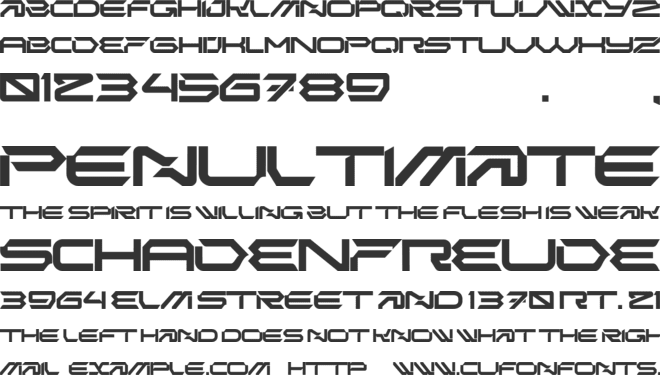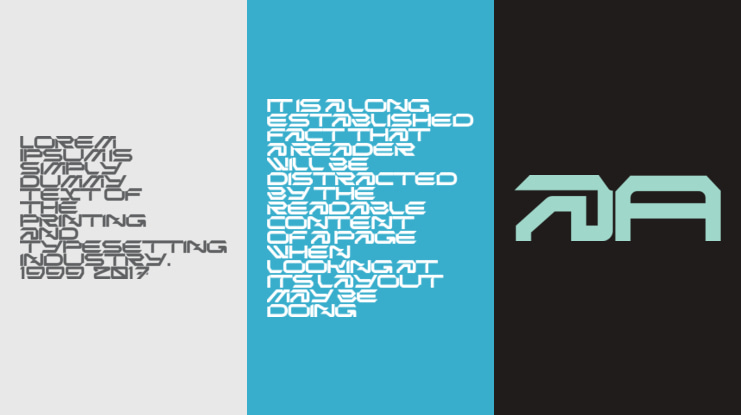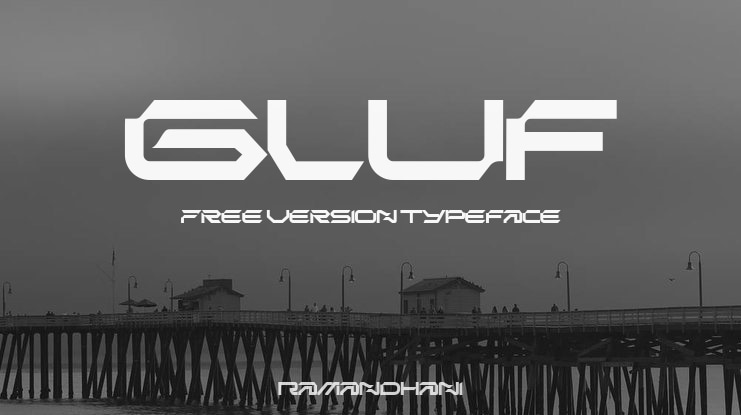
Gluf Free Version Font
Gluf is a futuristic display font crafted with bold precision and minimalist aesthetics. The name itself, short and memorable, reflects the essence of the font: clean, sharp, and forward-looking. Every curve and line in Gluf is designed to strike a balance between industrial strength and modern elegance, making it a versatile choice for a wide range of creative projects.